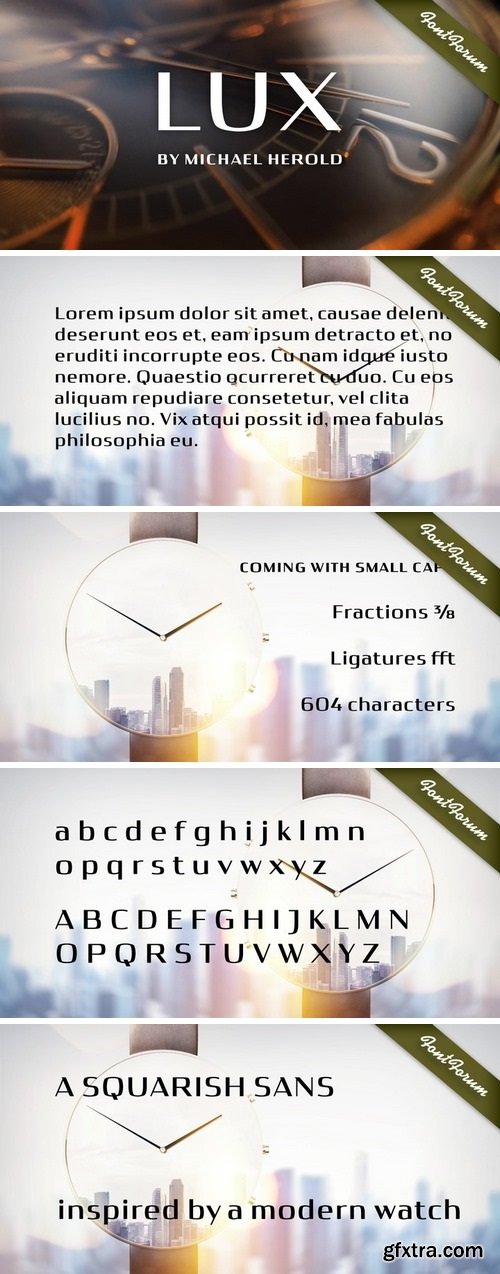
Lux Font
Many times, when a new creative process is starting, it is triggered by an everyday action or item. In this case, the looks of a lady’s watch inspired Michael Herold to create his new typeface LUX. The sight of the chronograph sparked associations of the 1950s in Mr. Herold: While this decade was predominantly dominated by brush and feather scripts, there was also a bloom of strict and modern architecture. This special mix of strength and retro style is exactly what Michael Herold is trying to capture in his LUX. The result is a typeface which is perfectly suitable for use on book covers, posters and claims – thanks to its striking impression. The name LUX, Latin for light, is inspired by the high bright-dark contrast within the individual characters.